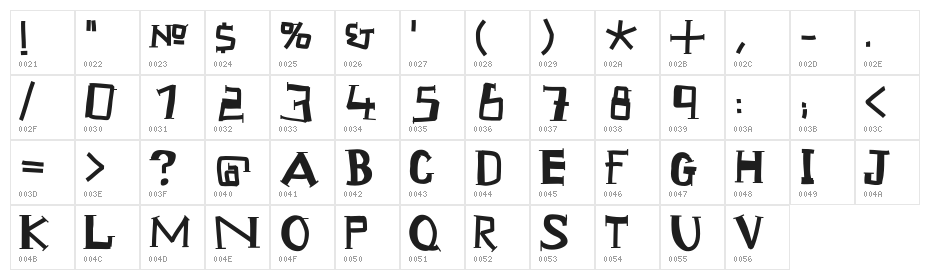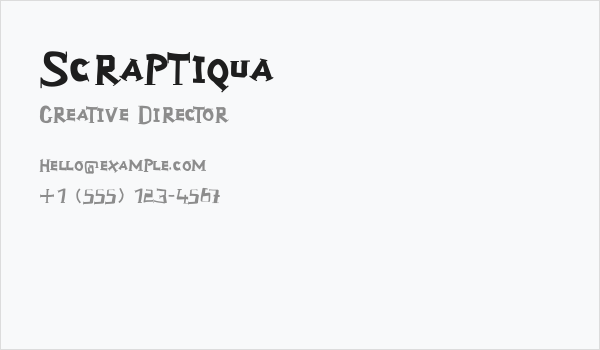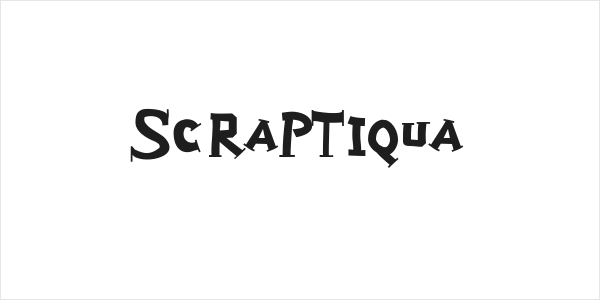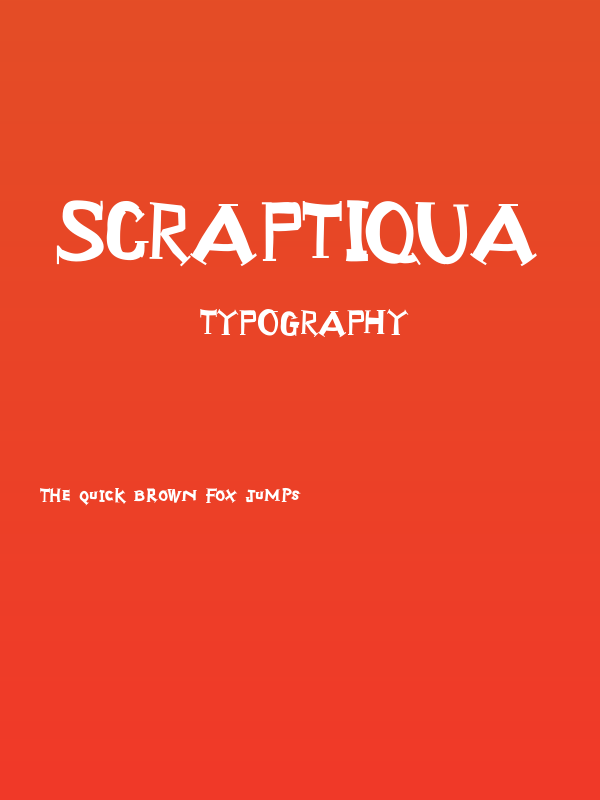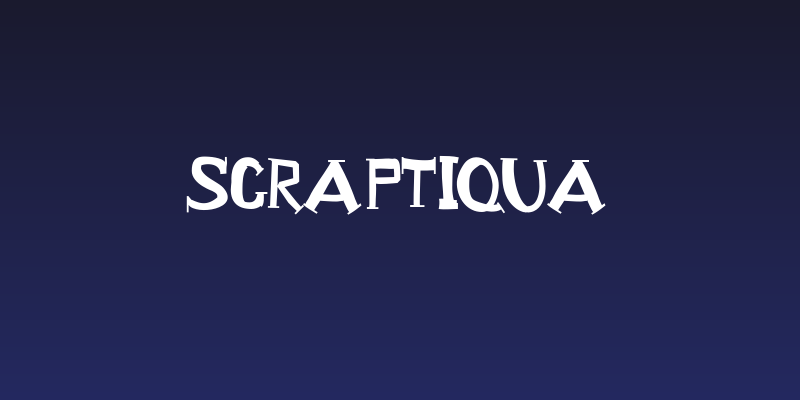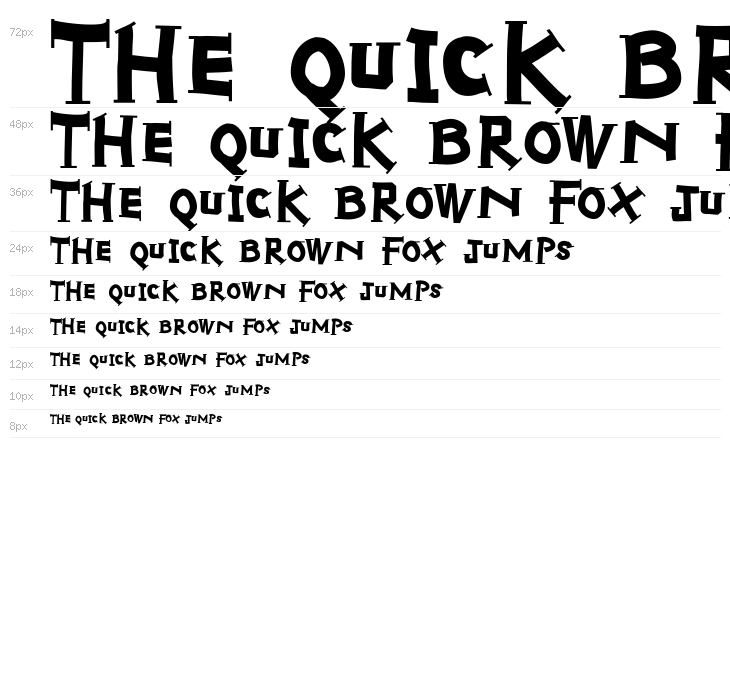
ScrapTiqua Font
ScrapTiqua Description
This font features a bold and playful design with a hand-drawn aesthetic. Each character has a unique, slightly irregular shape that adds a whimsical and artistic touch. The strokes are thick and uneven, giving the font a dynamic and energetic feel. The uppercase and lowercase letters maintain a consistent style, while the numbers and special characters complement the overall design. This font's quirky and informal appearance makes it ideal for creative projects that require a fun and engaging look.
| Overall Style | Playful, Artistic |
| Proposed Projects | Perfect for children's books, posters, greeting cards, and playful branding. |